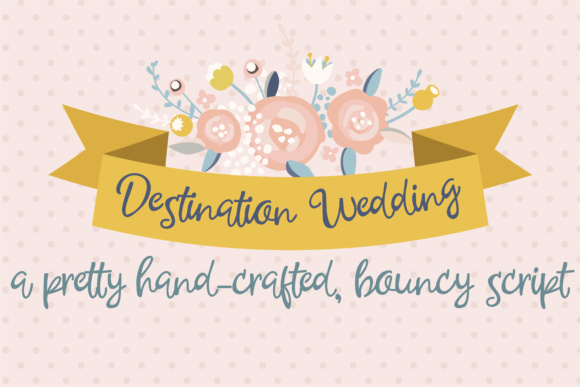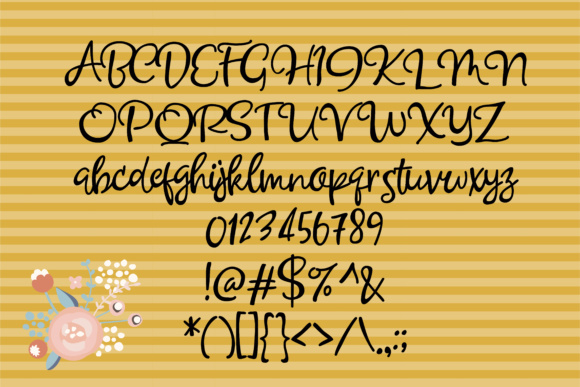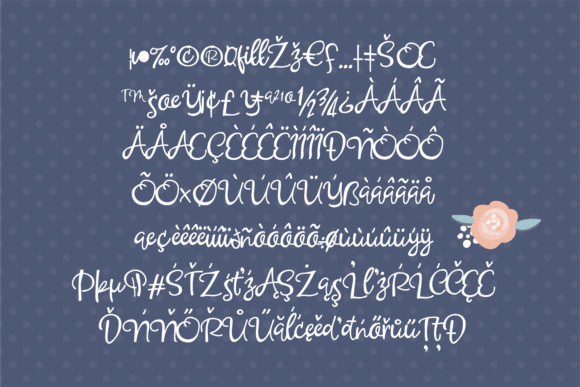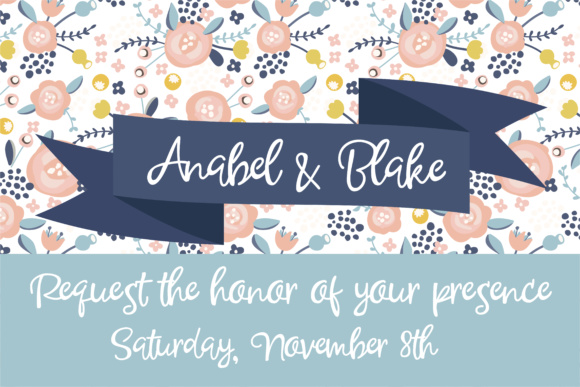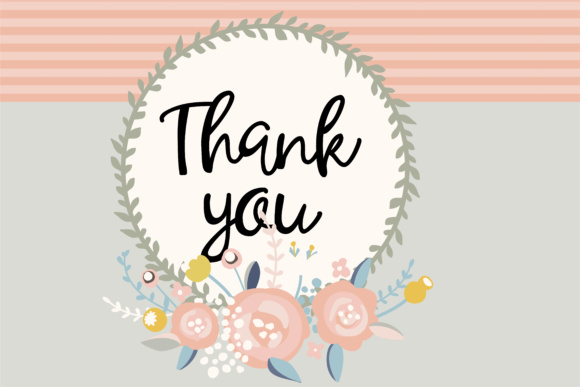
Destination Wedding Font
About Destination Wedding Font
Destination Wedding is a beautiful, handwritten cursive script that can give your work a bouncy and special feel. This font has a casual and relaxed vibe and works well in print and digital alike.